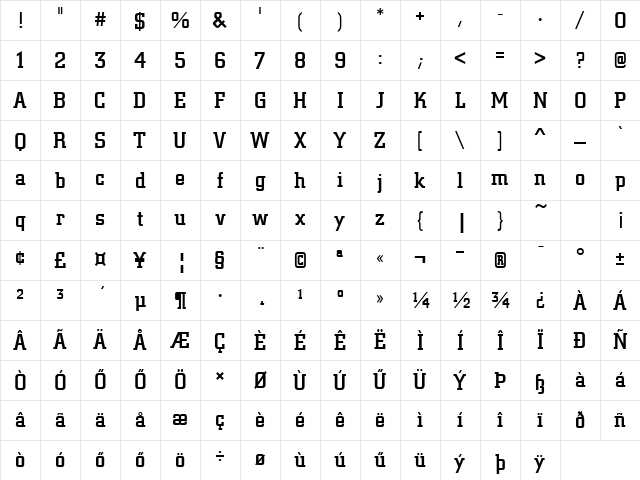
H_CityDMed Regular Free Font
H_CityDMed Regular
Design Context for H_CityDMed
H_CityDMed is a composed and adaptable typeface that performs quietly and consistently across a wide range of design contexts.